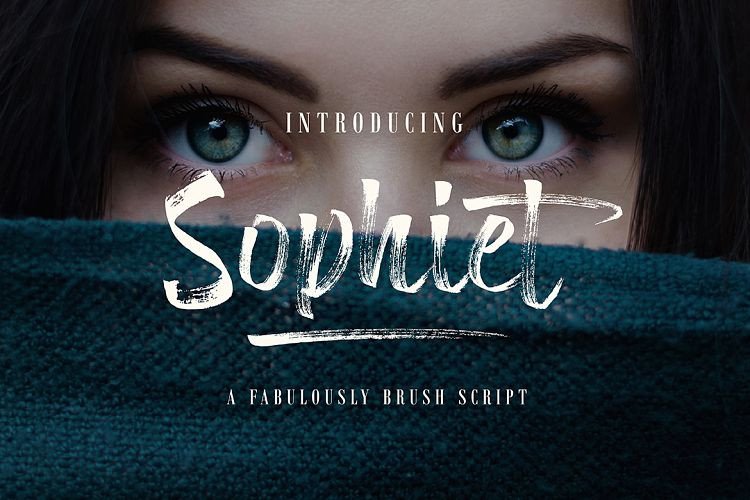
Sophiet Brush Font
Sophiet Font – is a strong hand drawn dry brush font. it’s great for headlines and logotype use. It is packed with automatic Contextual Alternates and Standard Ligatures that keep the text vivid. This font is perfect for design purposes such as logo design, t-shirt, heading, magazine, newspaper, website, to design quotations, posters, business cards, and others.